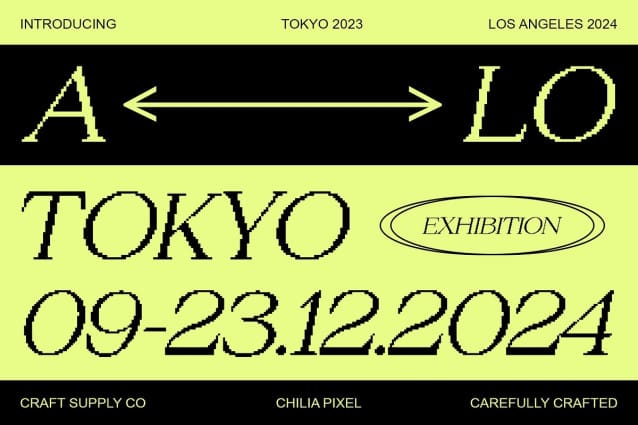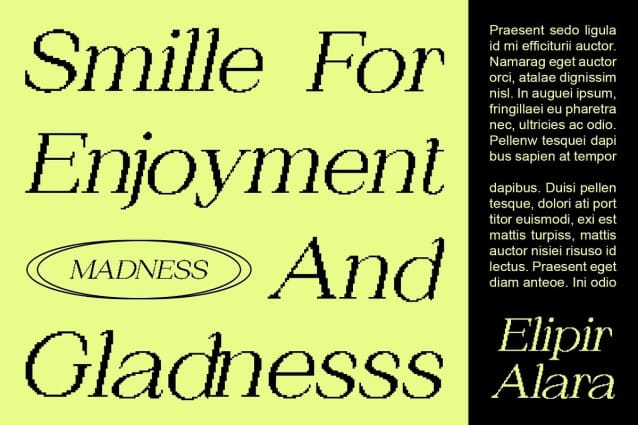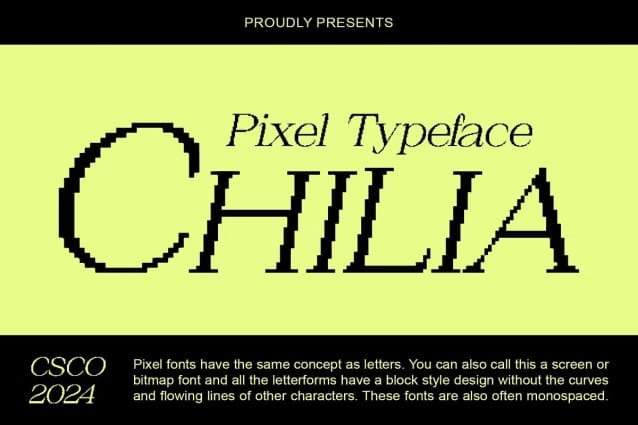
Chilia Pixel Font
Chilia Pixel Font is a modern serif font that combines timeless elegance with a pixelated twist. Perfect for creating eye-catching displays, this font adds a sophisticated yet contemporary touch to your designs.
With its refined lines and unique pixel effect, Chilia Pixel offers a fresh take on traditional serif fonts. The elegant design and digital flair create a captivating and dynamic look, ideal for posters, digital media, and other projects that need a striking and modern appeal.
Whether you’re designing a flyer for a tech event or creating packaging for an innovative product, Chilia Pixel is sure to make a statement. Its elegant design and pixel effect make it perfect for displays that demand attention and convey a sense of digital sophistication.
Despite its distinctive appearance, Chilia Pixel is versatile and easy to use. The font works well in both large and small sizes, making it suitable for a variety of applications, from headlines and banners to logos and more. With its blend of elegant serif design and pixel vibe, Chilia Pixel adds a captivating and modern touch to any design.